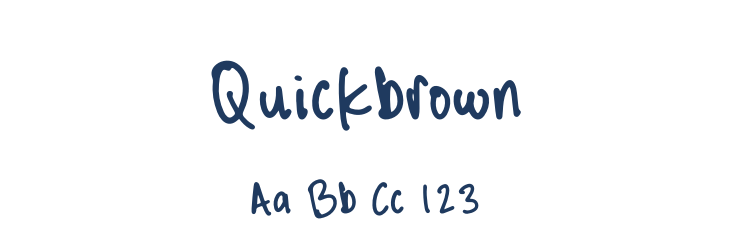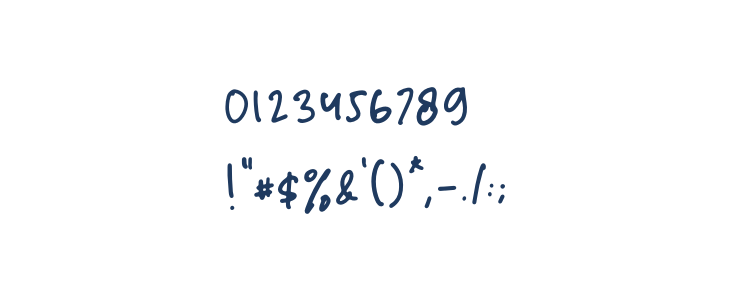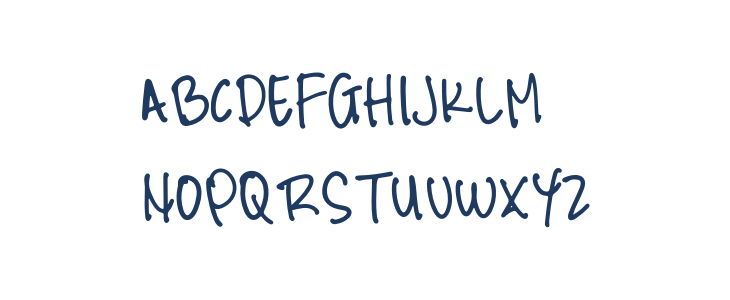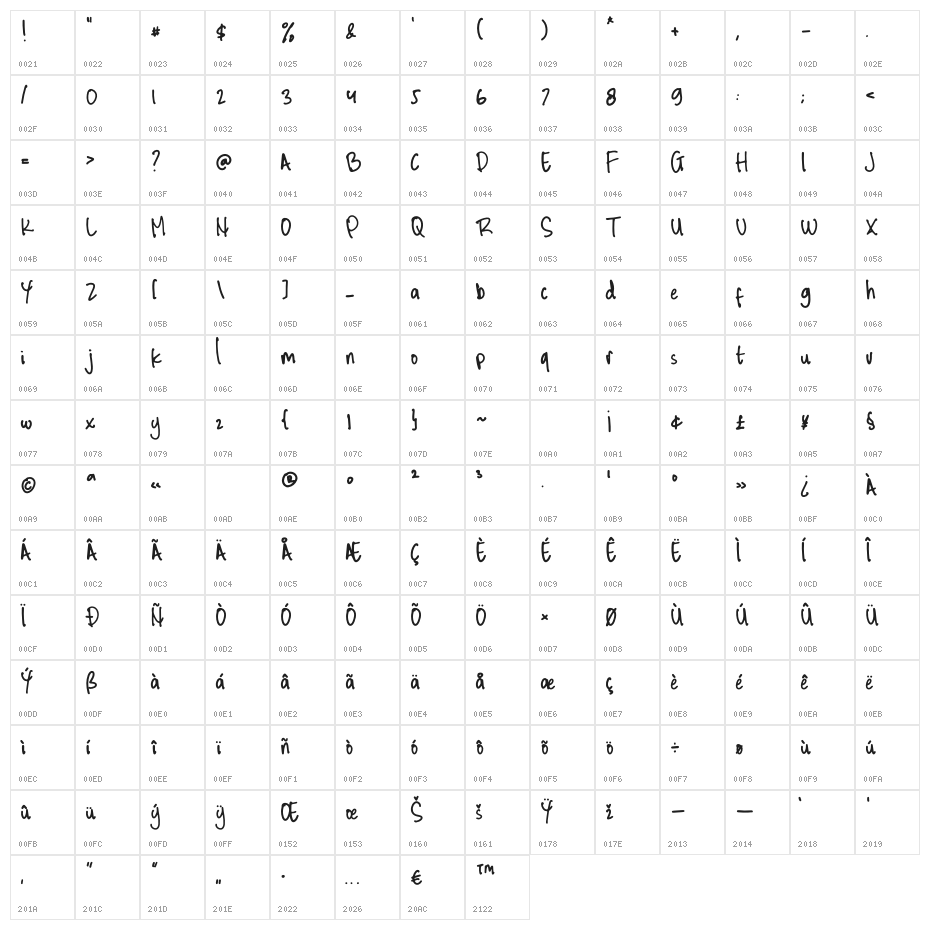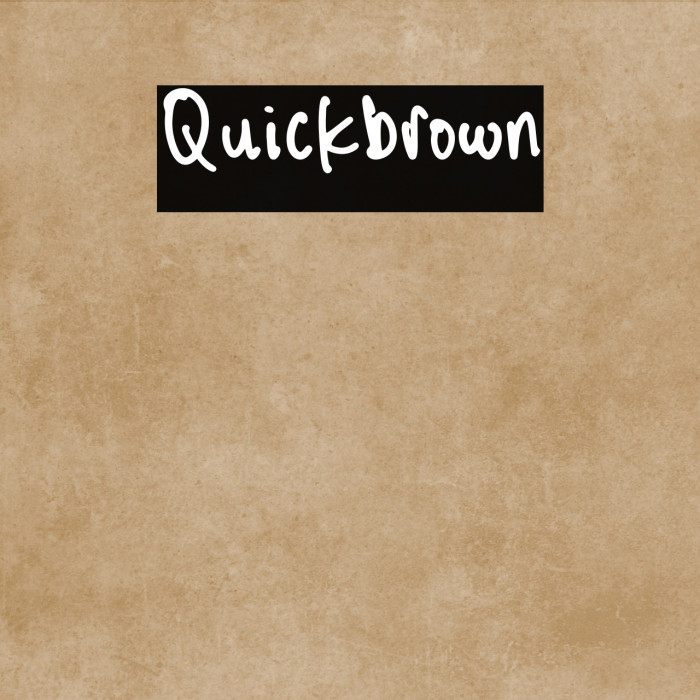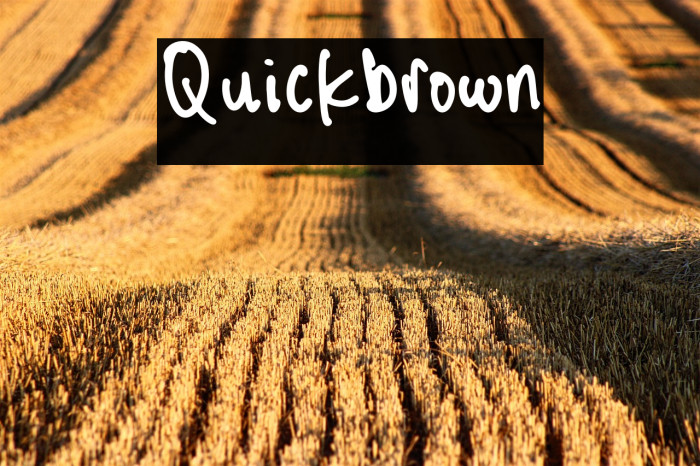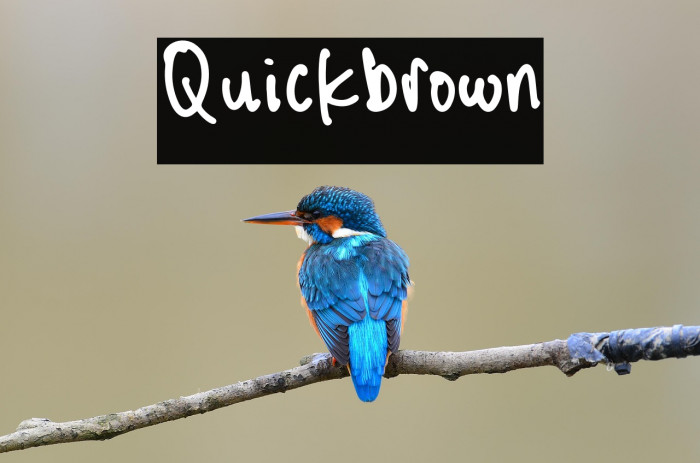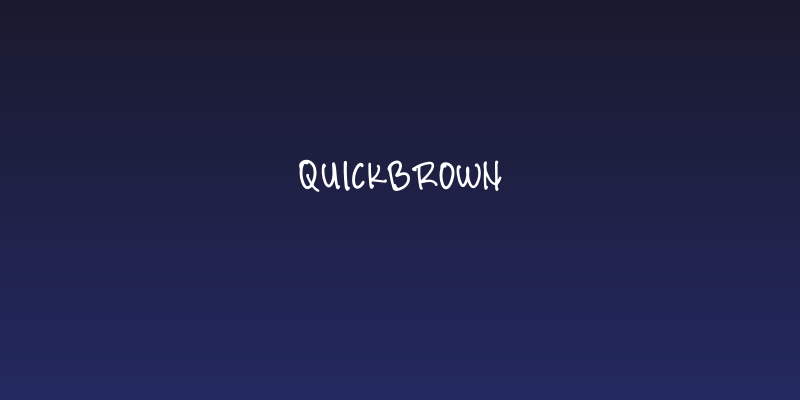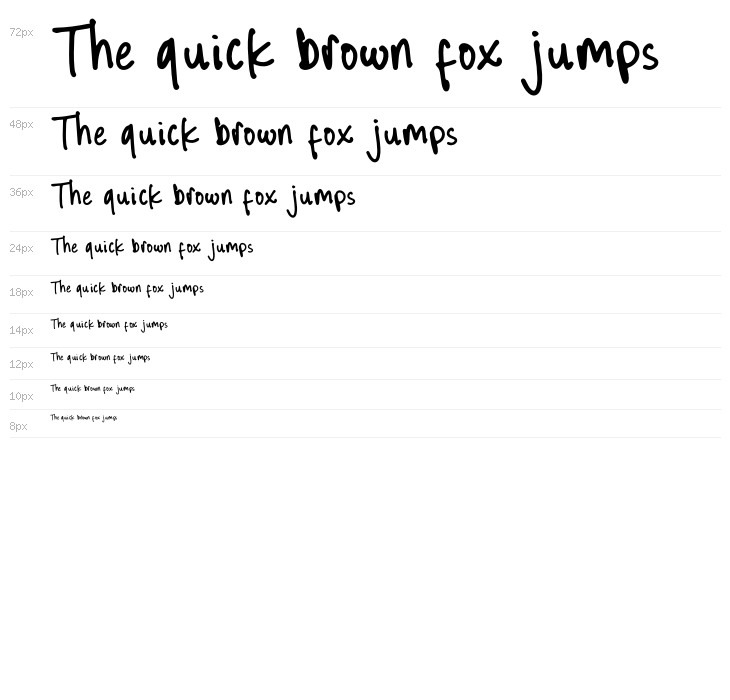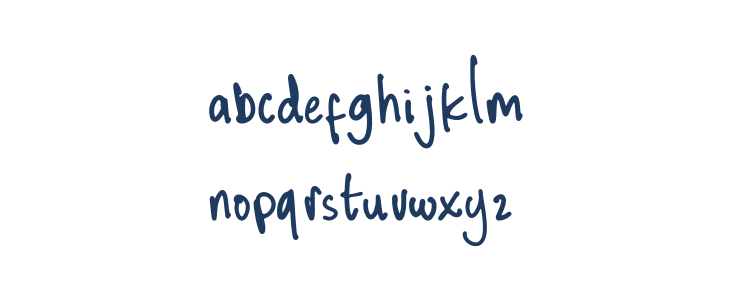
Quickbrown Font
Quickbrown Description
A playful, casual handwritten font with irregular strokes and a natural, informal appearance. The characters have a slightly uneven baseline, mimicking authentic handwriting, and feature rounded terminals with moderate spacing.
| Overall Style | Casual, Playful, Informal |
| Use Case | Headlines, Short text, Quotes, Invitations |
| Proposed Projects | Greeting cards, children's books, personal branding, informal posters, social media graphics. |